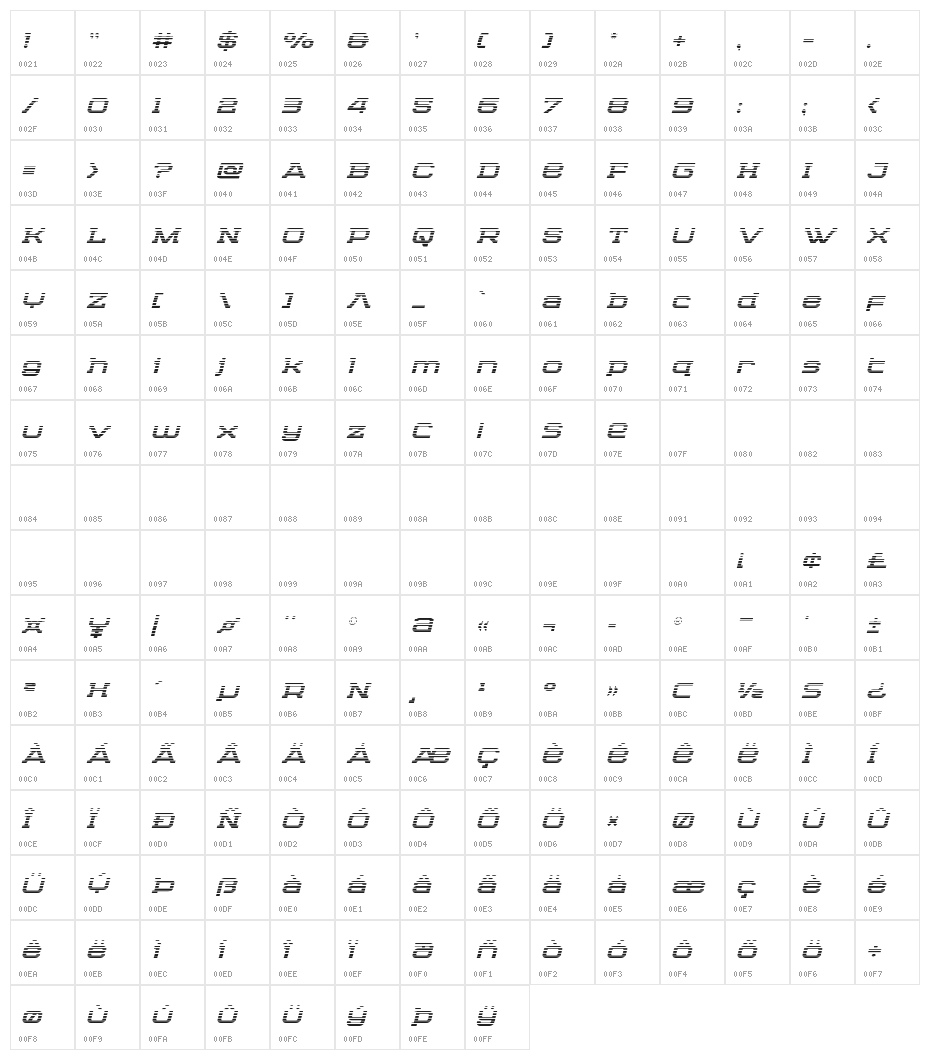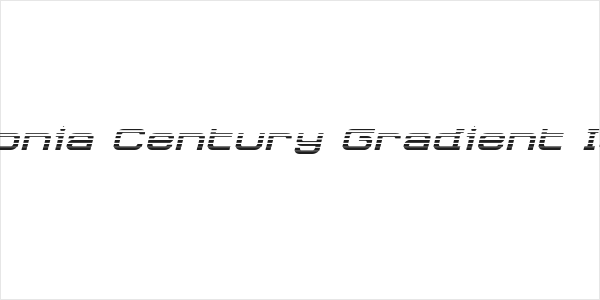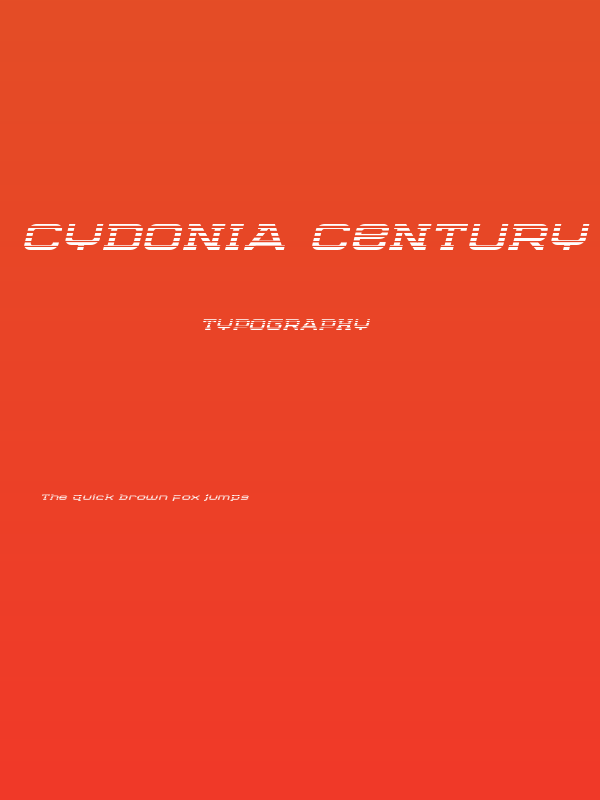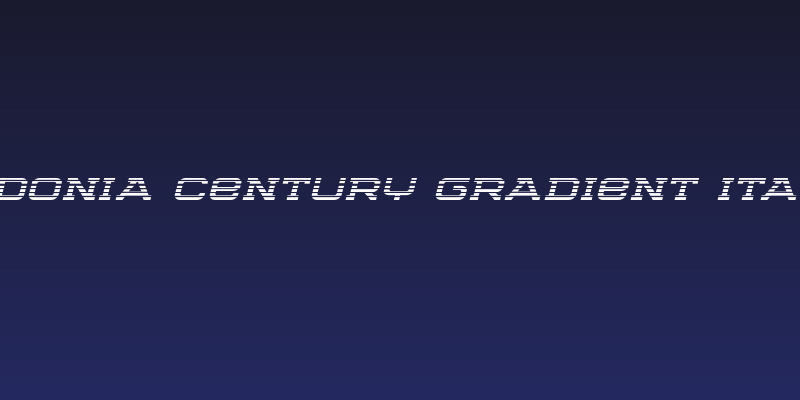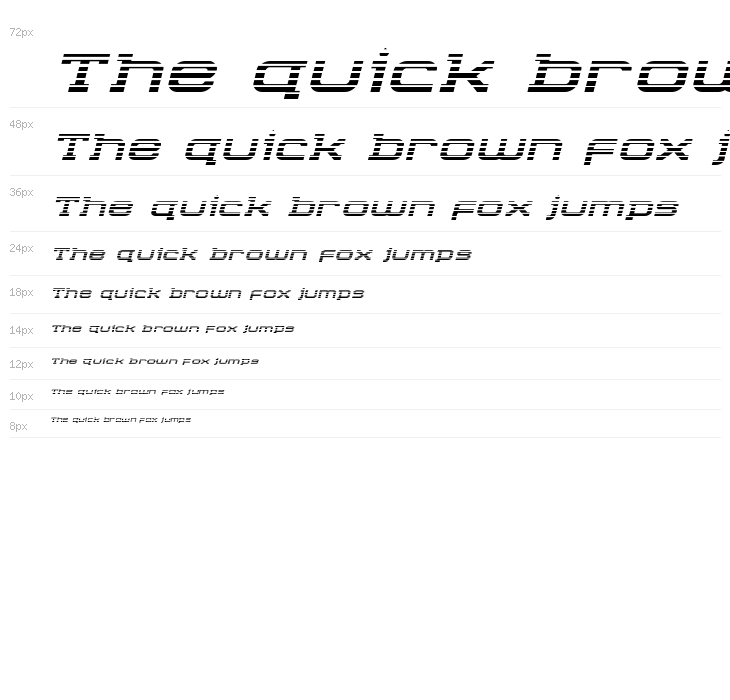
Cydonia Century Gradient Italic Font
Cydonia Century Gradient Italic Description
This font features a unique gradient effect with horizontal stripes running through each character, creating a dynamic and futuristic appearance. The italicized style adds a sense of motion and speed, making it ideal for modern and tech-oriented designs. The uppercase and lowercase letters maintain a consistent width, while the numbers and special characters are designed to complement the overall aesthetic. The font's distinct style is both eye-catching and versatile, suitable for a variety of creative projects.